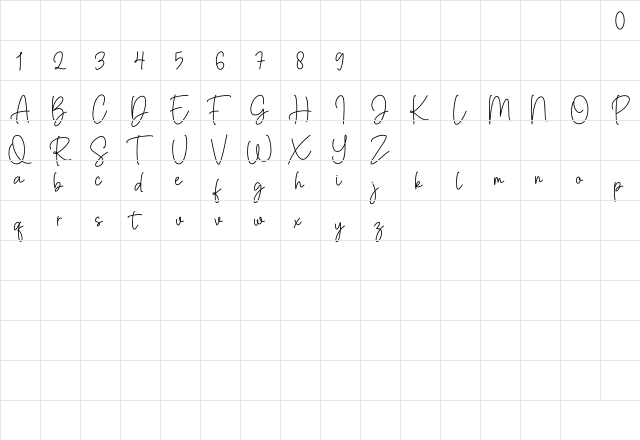
Margareth Script Regular
| Designer | Jefri Dwi Alfatah |
Design Context for Margareth Script Typeface
Margareth Script flows with the natural rhythm of handwritten lettering, making it ideal for designs that call for warmth and personal expression.
Font Pairing: Combine Margareth Script with a simple geometric sans for maximum contrast — the tension between flowing curves and clean structure is a classic typographic pairing.
Pro Tip: Use Margareth Script for short runs of text — names, titles, or taglines. Extended body copy in script faces tires the eye quickly.